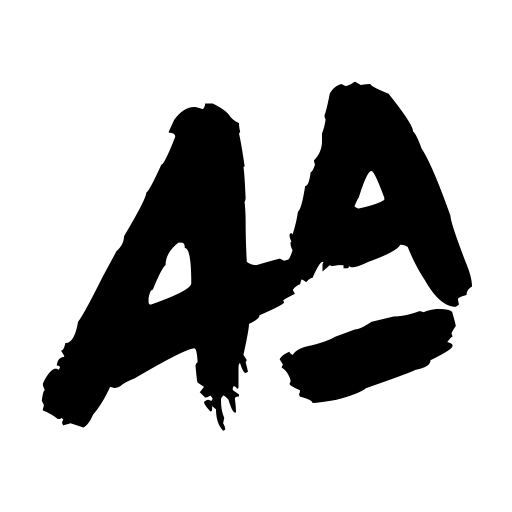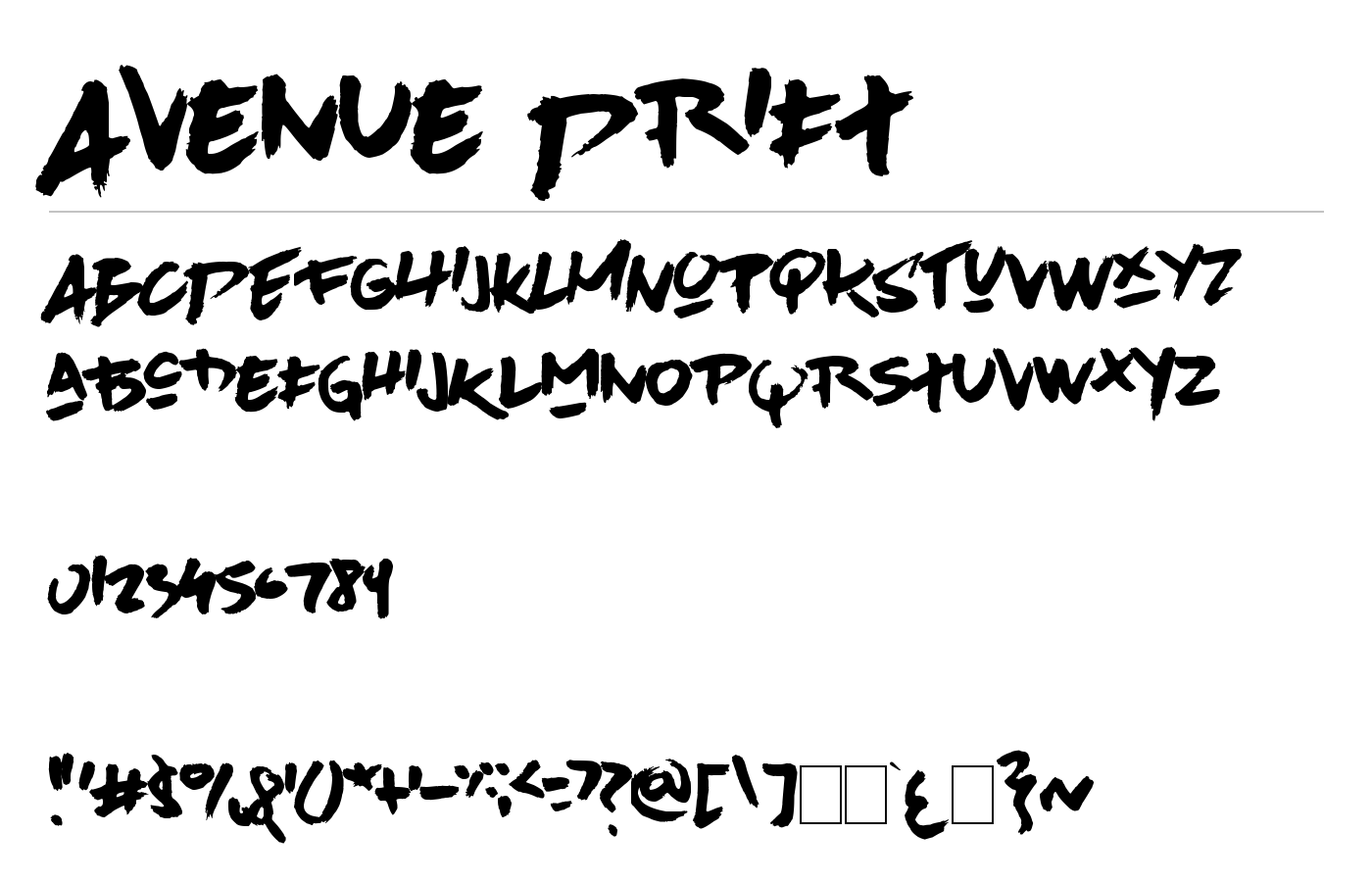
Avenue Drift is a bold, brush-script font with a rough, energetic texture that evokes a hand-painted feel. Its irregular strokes and slightly condensed shapes make it perfect for dynamic, urban designs that want to capture a raw, authentic vibe. Ideal for posters, logos, or creative branding, this font adds a striking, artistic edge that feels both modern and edgy.
Avenue Drift Font
About Avenue Drift Font
| Font family | Avenue Drift Font |
| Designer | Leonard Posavec |